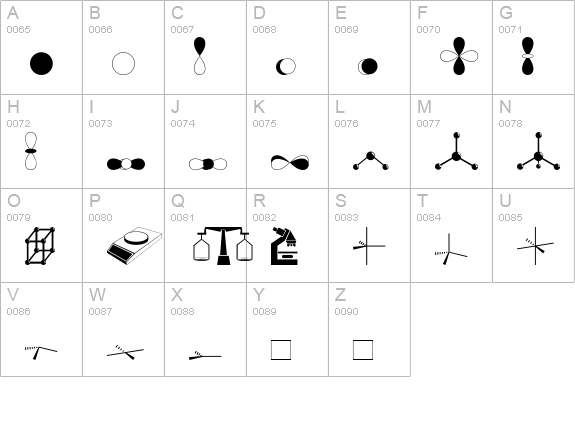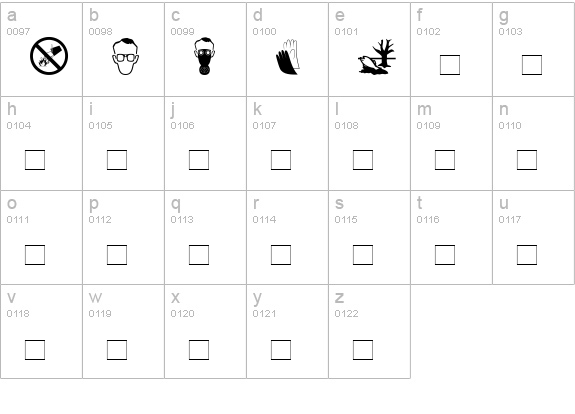
DivChem Font Details
Introducing DivChem font, a modern typeface that combines elegance and sophistication with a touch of creativity. The sleek lines and unique curves of DivChem make it a standout choice for any design project, from branding to editorial layouts. This versatile font is perfect for creating eye-catching headlines, striking logos, or stylish packaging designs. With its clean and contemporary look, DivChem adds a touch of sophistication to any project. Best of all, DivChem is available for free download at FontsMarket.com. So go ahead and elevate your designs with this stunning font today!